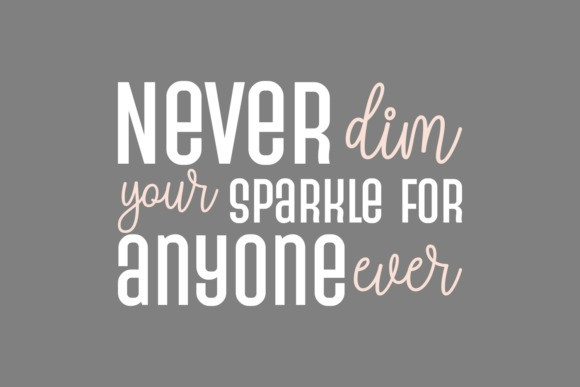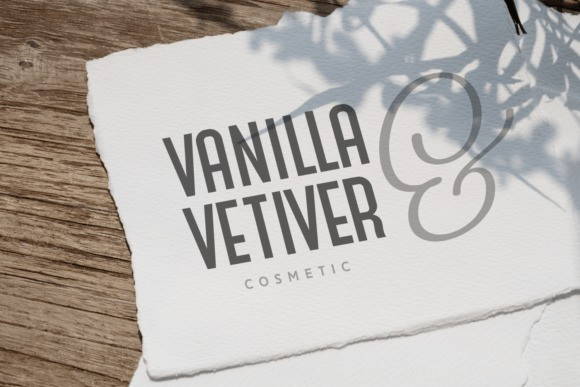
Modern Luxury Font
Modern Luxury Font. This is a sans serif font designed specifically to elevate your style and carve out a niche for itself among premium designs. “Modern Luxury” makes its presence felt in modern, display, and elegant works, adding a touch of class and refinement. As ideal for banner and fashion designs as it is for print, crafts, Cricut, logos, and branding, this bold font truly is a jack of all trades.
Ideal for social media and Mother’s Day-themed designs, “Modern Luxury” rides the wave of current trends, yet adds its unique charm to every creation. It’s a truly beautiful choice for those seeking to add a cool, love-infused touch to their work.
“Modern Luxury” extends beyond a simple font and morphs into a logotype, making it perfect for stickers, magazines, and summer-themed designs. This stylistic font is not just popular among designers but is also creating trends in its wake.
Specially designed with multilingual support, “Modern Luxury” embraces Eastern European charm in its typographical structure. Dive into the world of “ModernLuxury” and bring a fresh, luxurious wave to your designs.